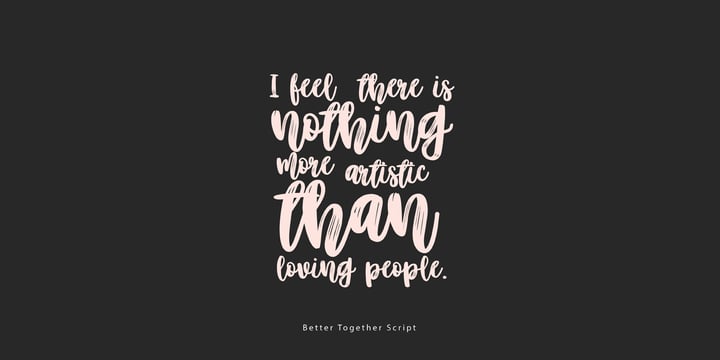
Better Together
von Katsia Jazwinska
Die Schriftfamilie Better Together wurde von Katsia Jazwinska entworfen und von Katsia Jazwinska veröffentlicht. Better Together enthält 6 Stile und Familienpaketoptionen. Mehr über diese Familie
Take a look at Better Together, a four-font handwriting family, which was made to look great together in all possible combinations, but also work beautifully on their own. The family consists of: - Better Together Script - a charismatic script, which includes some double-lettered ligatures and alternates for several letters to make your texts look more authentic. - Better Together Condensed - a friendly, fun and quirky font which will give your project illustrative handmade feel. - Better Together Spaced - a specially spaced small font which will give your designs a handwritten feel and a modern aesthetic look. - Better Together Caps - a bold Uppercase font which is indispensable in all occasions where eye-catching headline needed. And one more thing! Each font includes cyrillic and international characters that support most European languages. Hope you like it!
Designer: Katsia Jazwinska
Foundry: Katsia Jazwinska